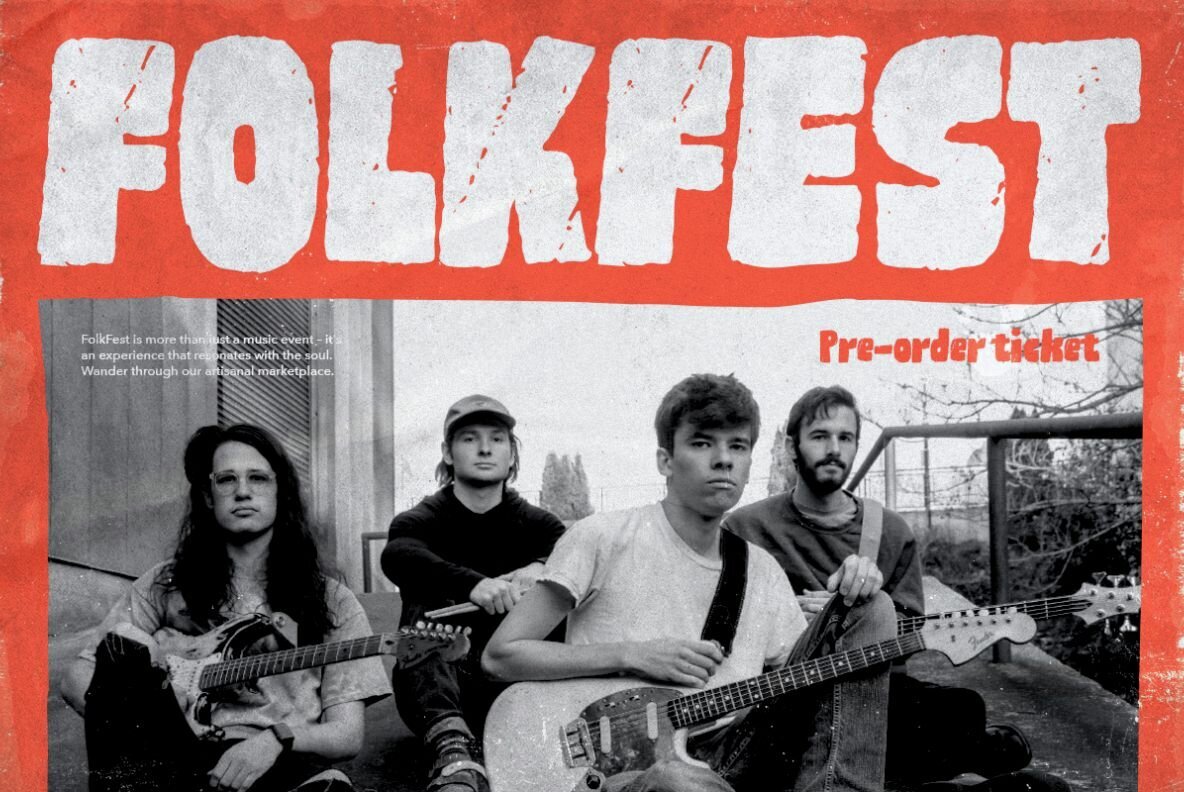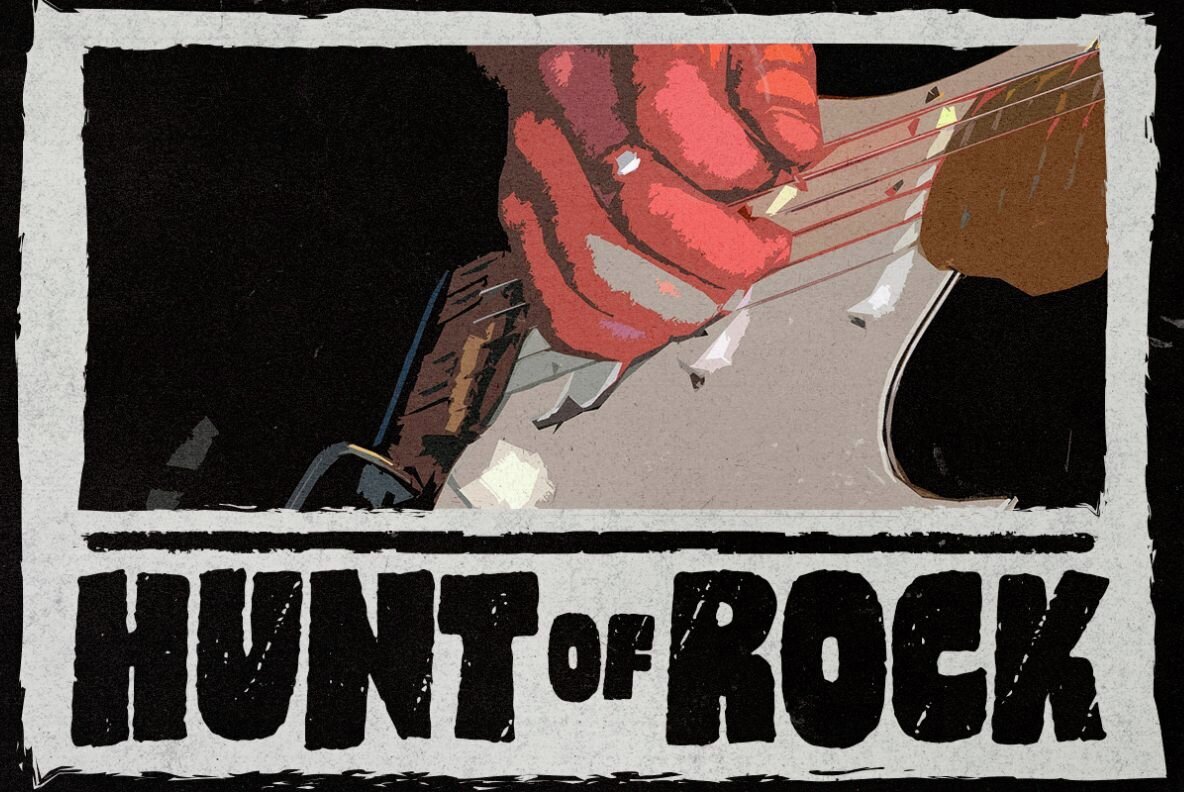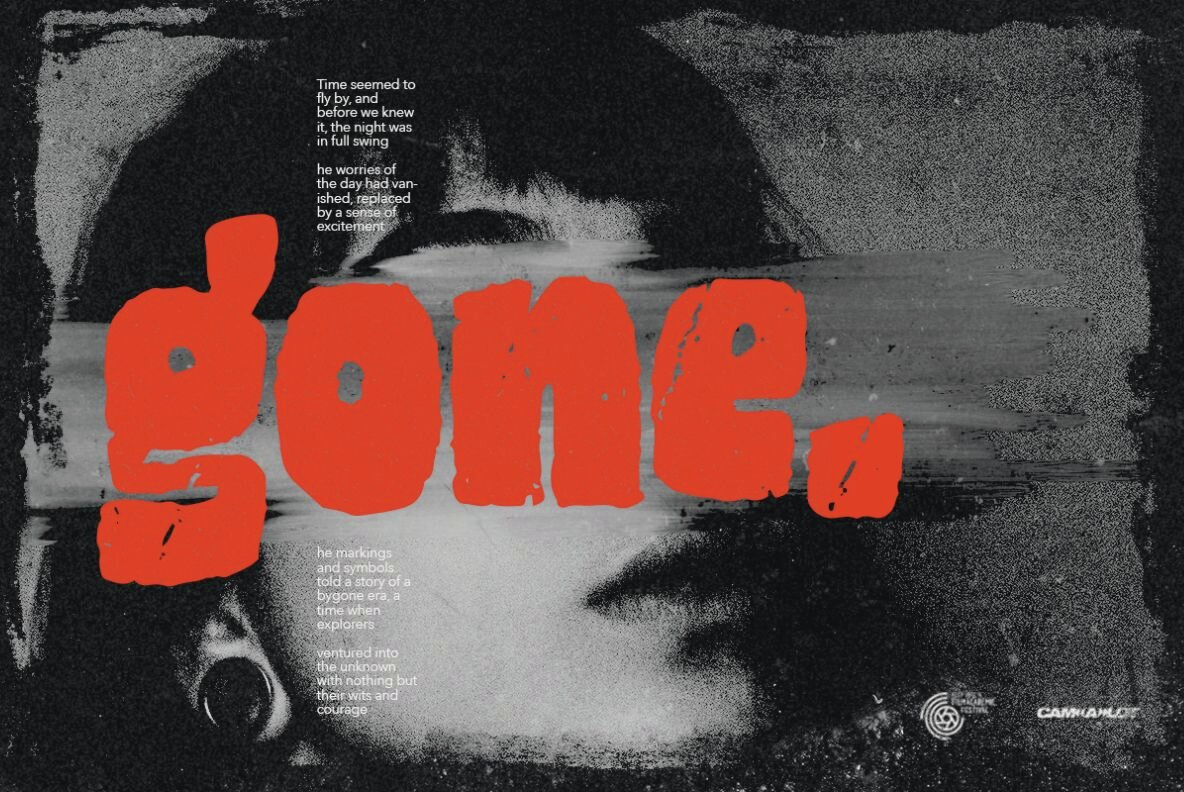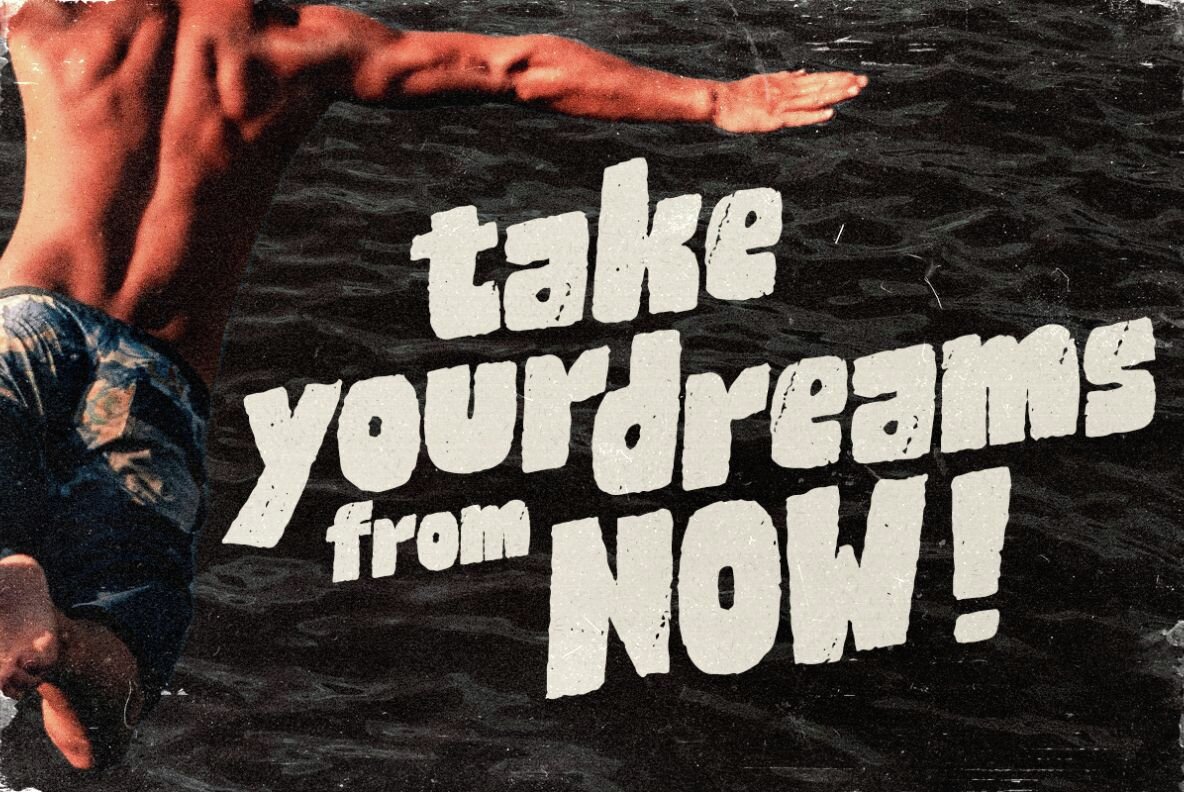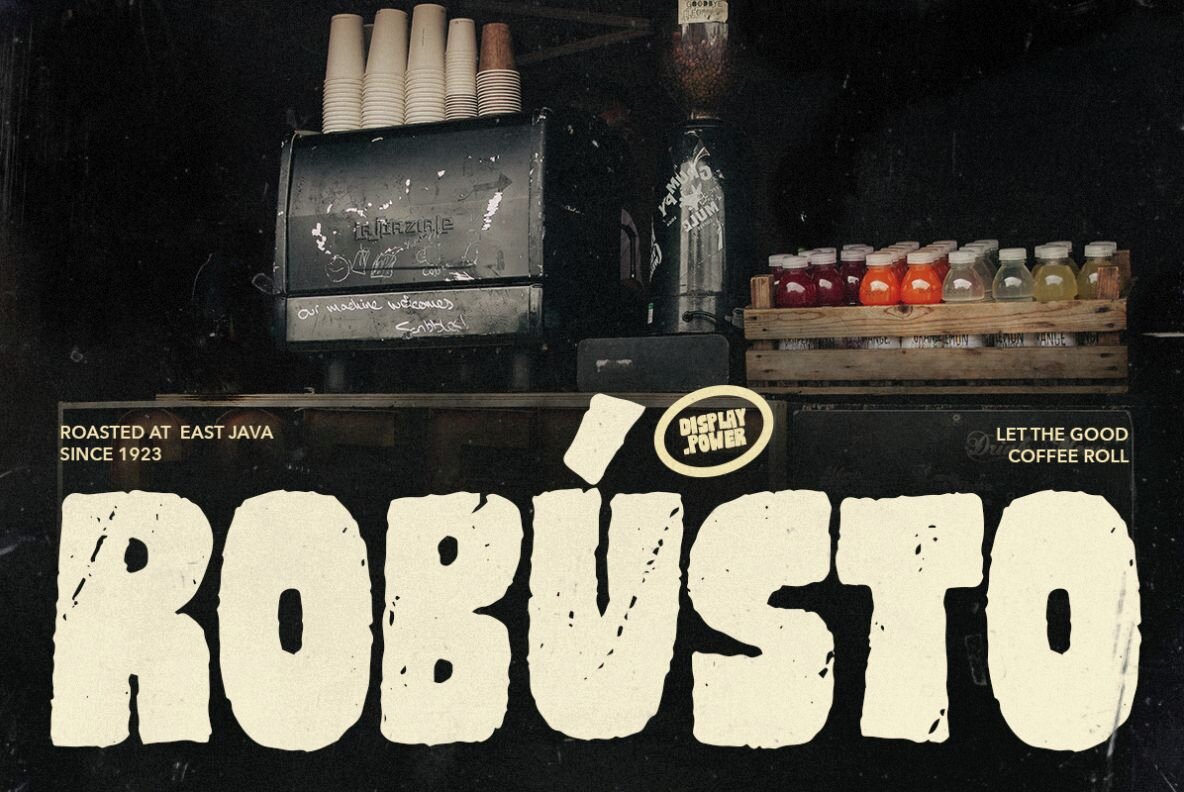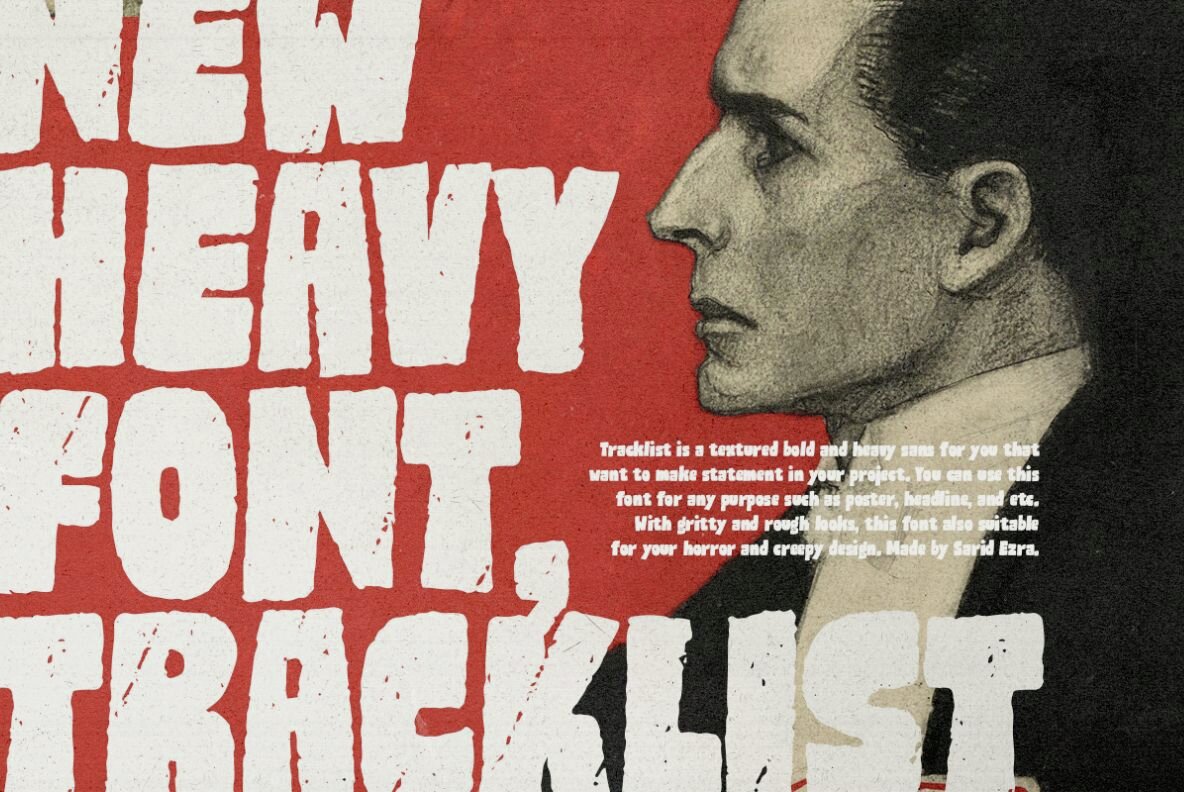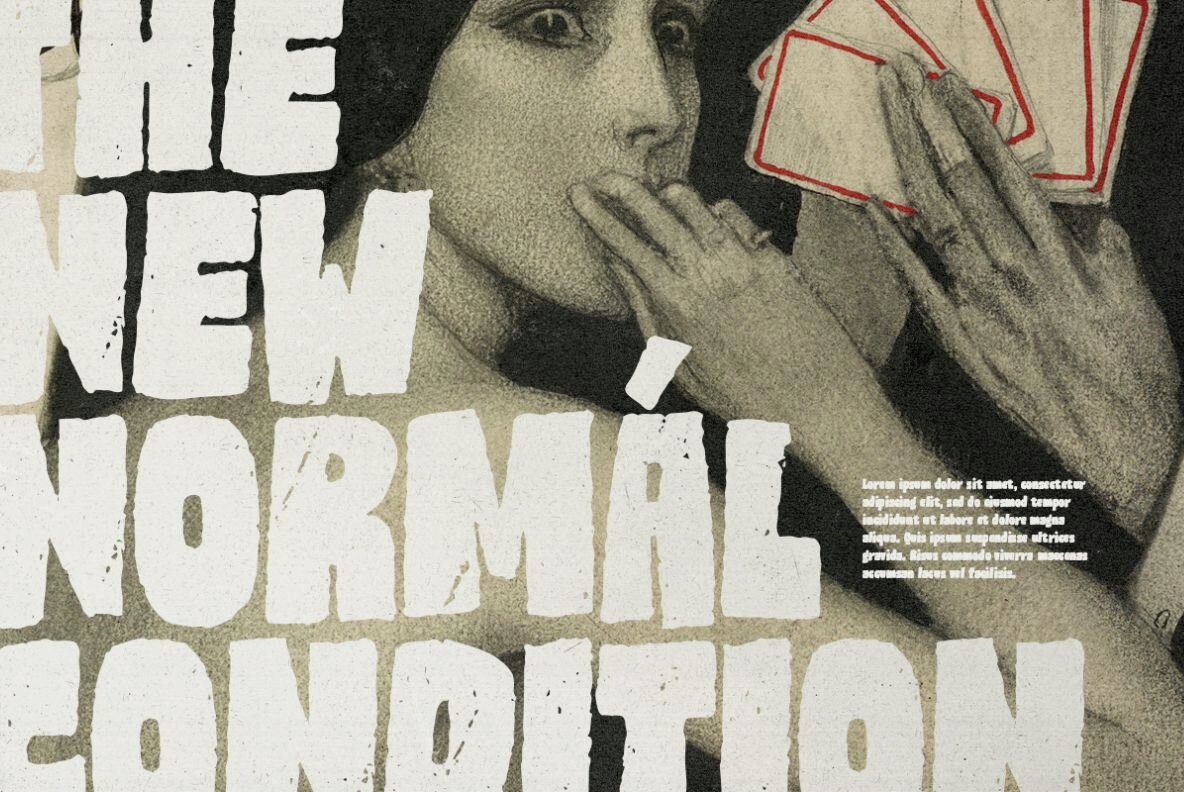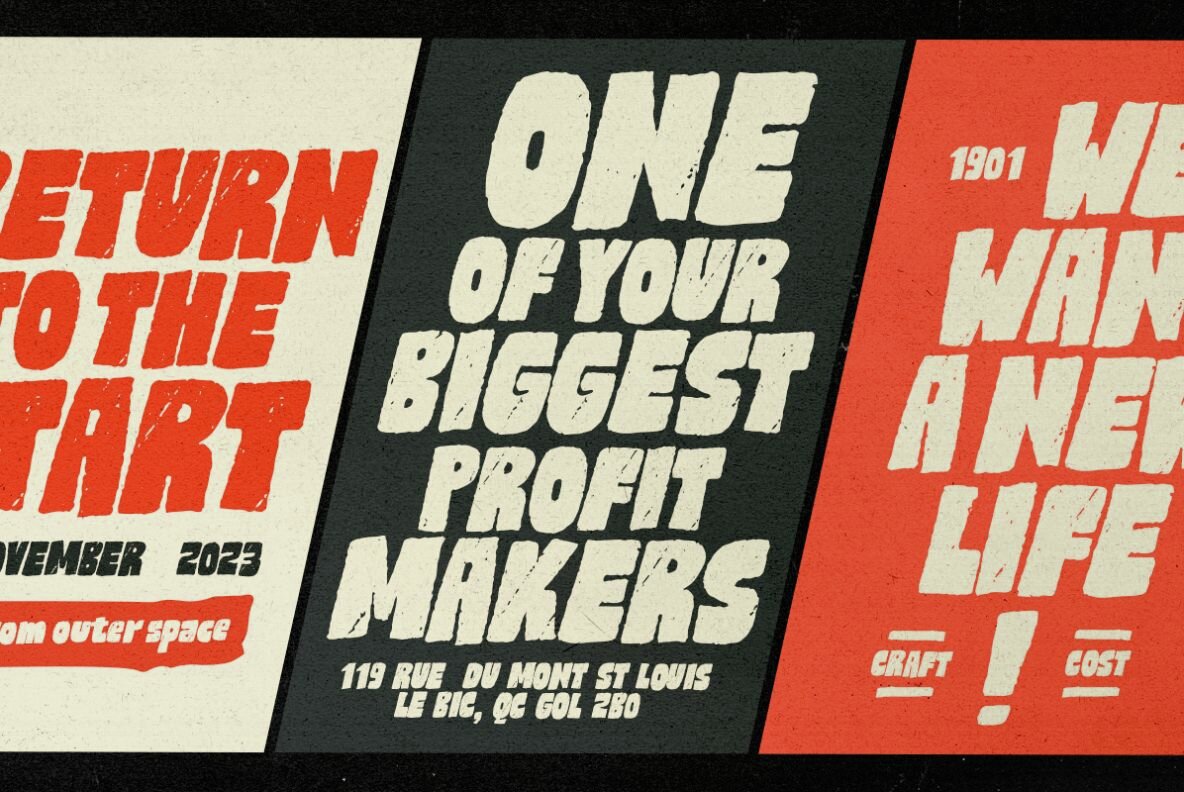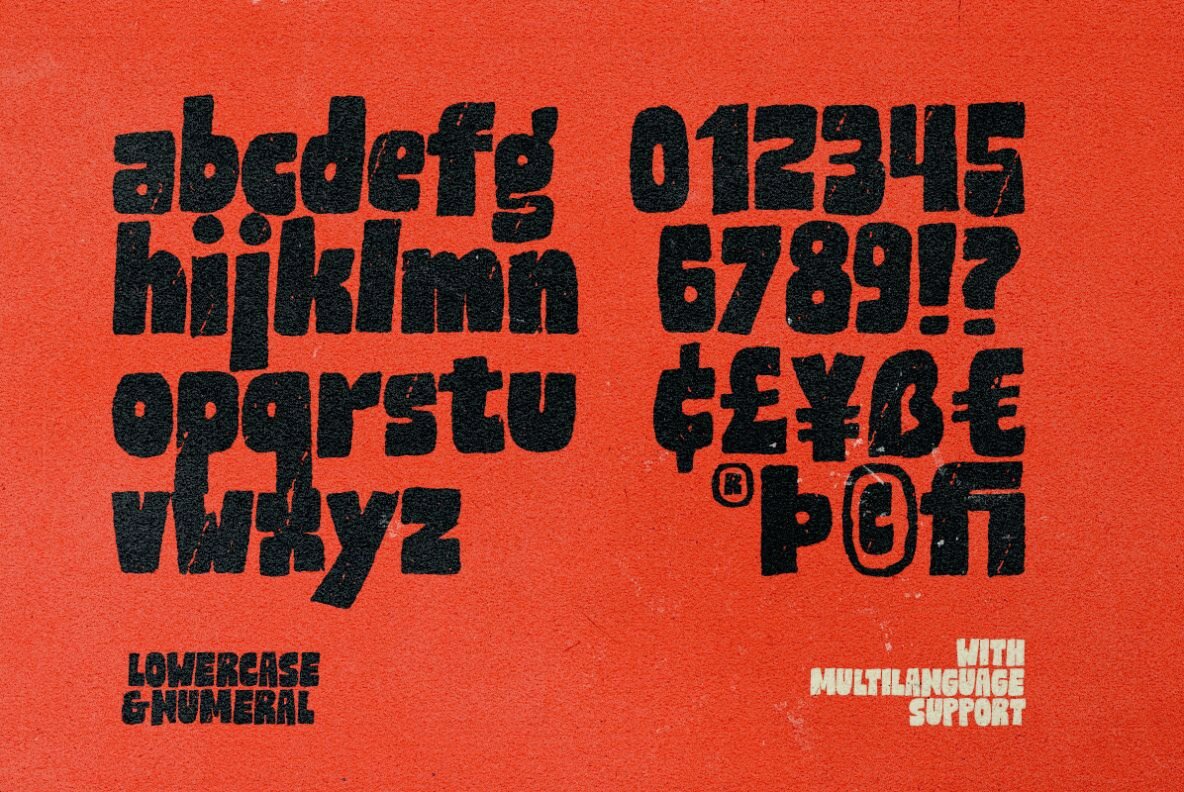
Tracklist Font
Tracklist is a textured bold and heavy sans for you that want to make statement in your project. You can use this font for any purpose such as poster, headline, and etc. With gritty and rough looks, this font also suitable for your horror and creepy design. Tracklist also support multi language!